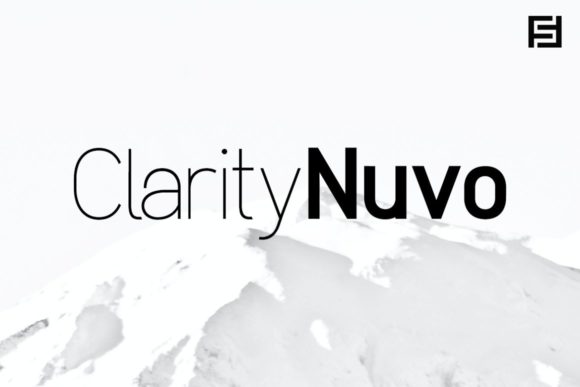
Prepare to be captivated by Clarity Nuvo, a contemporary sans-serif font that exudes both sophistication and simplicity. Its sleek lines and crisp edges will instill an air of grace and elegance into your designs, leaving an unforgettable impression on all who encounter it. With its contemporary twist, Clarity Nuvo breathes new life into your creations, making them shine brighter than ever before.
Unleash your creativity and let Clarity Nuvo guide you towards innovative design horizons. Witness the transformation as your ideas metamorphose into breathtaking visuals, thanks to this font's innate ability to elevate even the most ordinary elements. With Clarity Nuvo as your ally, you possess the power to craft designs that ignite imaginations and leave an indelible mark on the world.
Embrace Clarity Nuvo and embark on a journey of visual storytelling where your designs take center stage. Its versatility knows no bounds, effortlessly adapting to a myriad of projects, be it logos, branding materials, website design, or social media graphics. Allow Clarity Nuvo to be the cornerstone of your creative endeavors, propelling you towards design excellence.